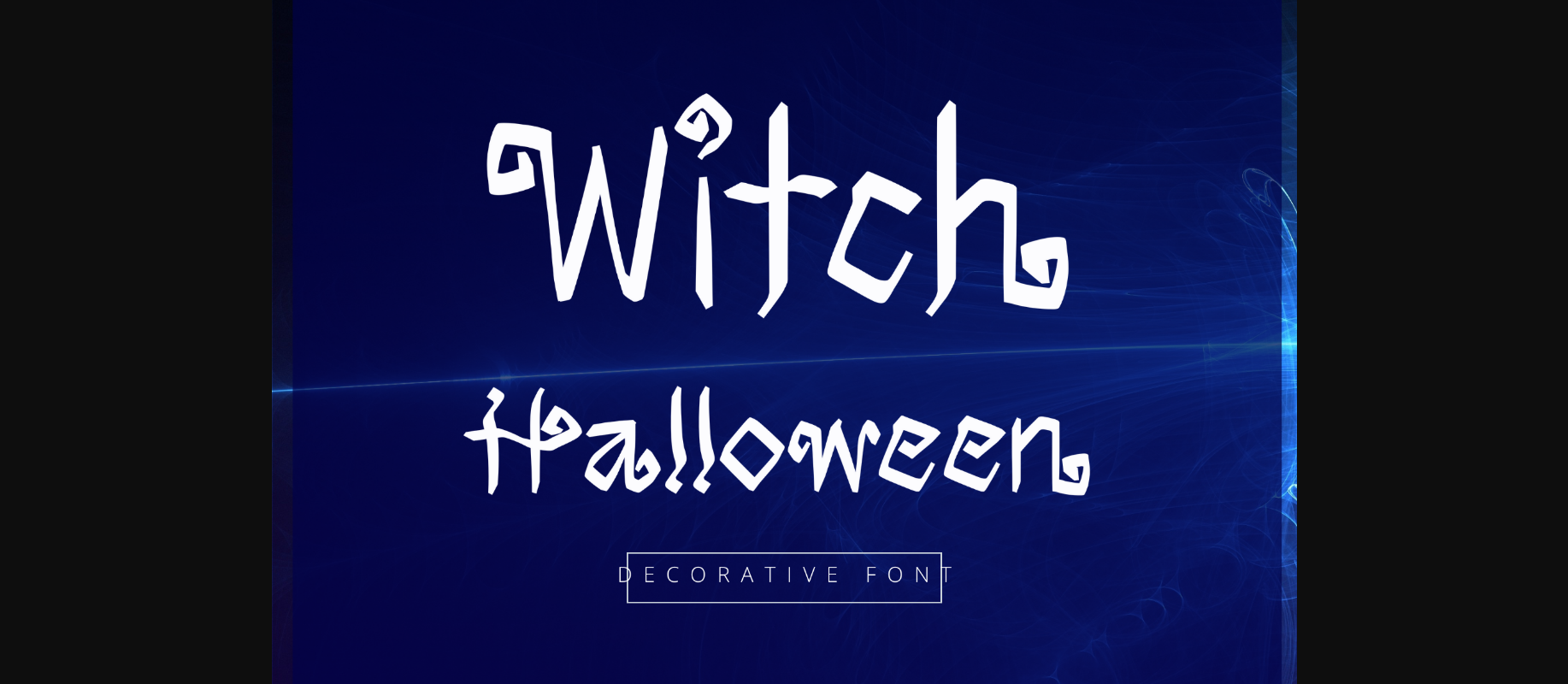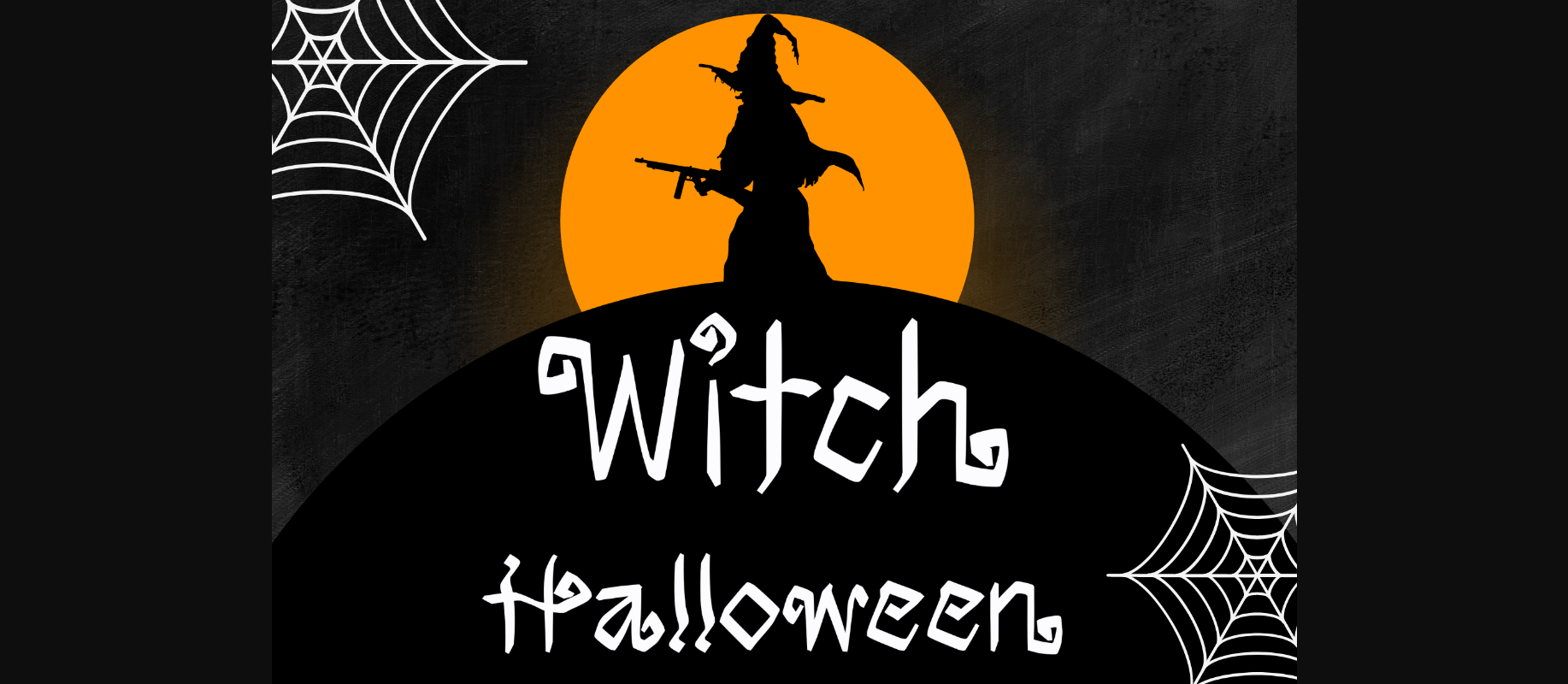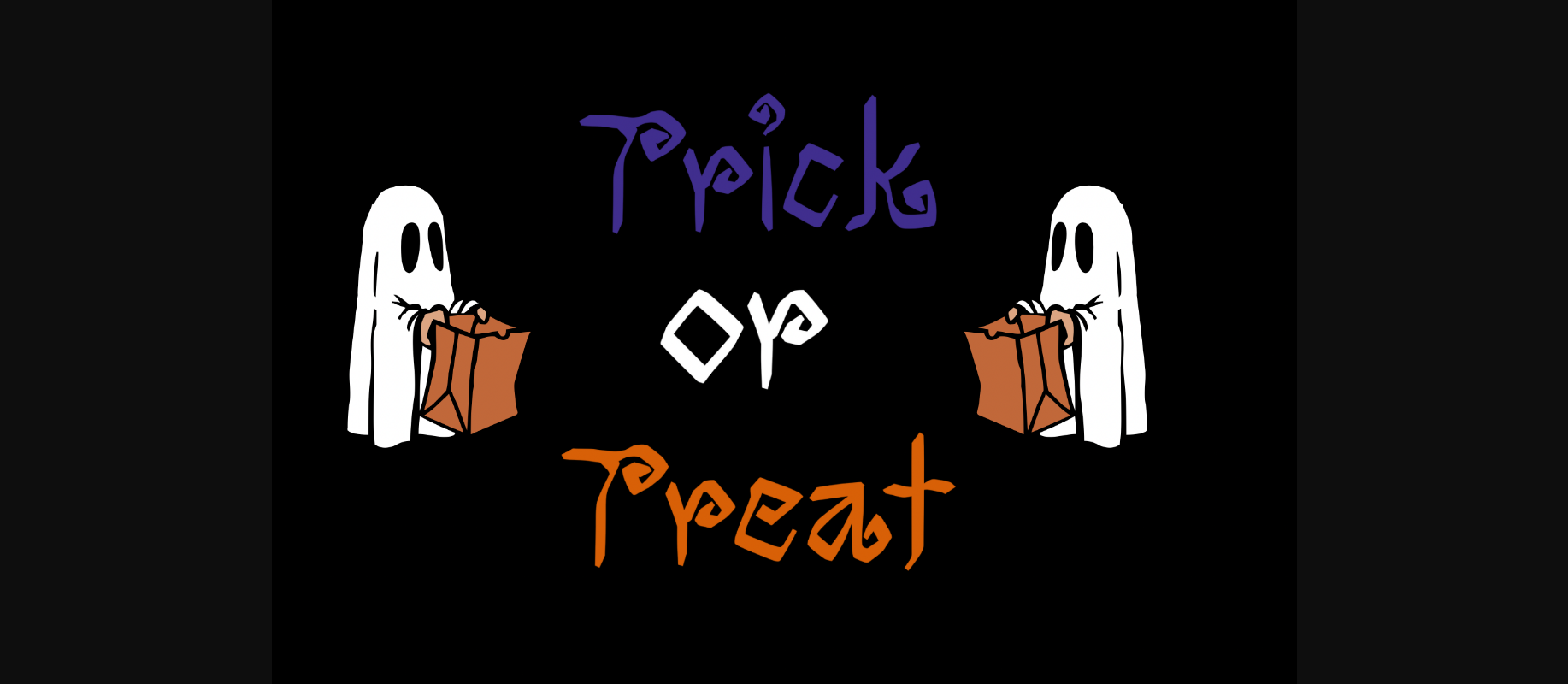
About Witch Halloween Font
Witch halloween is a fun decorative font with a Halloween vibe. It is suitable for a variety of designs such as Halloween and children’s themes, cartoon-related designs, crafts, or just any creation that requires a lovely touch. Use it for t-shirts, tote bags, hats, stickers, logos, cards, quotes, and more!